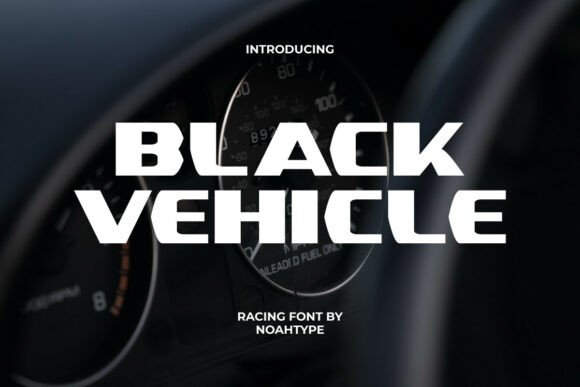
The Ultimate Design Hack: Unleashing the Power of Black Vehicle Font
Ah, the thrill of the design hunt! I still remember the countless hours I spent scrolling through font libraries, searching for the perfect typeface for a client’s sports brand project. The brief was simple: bold, modern, and edgy. I wanted a font that would scream speed and style. And then, I stumbled upon Black Vehicle Font. 🚗💨
This bold and versatile sans-serif display font has been a game-changer for me ever since. With its racing theme and random cuts on the letters, it’s a perfect blend of style and readability. In this article, I’ll share my love for Black Vehicle Font, its features, and how to make the most of it in your designs.
• ✨ Versatility: Black Vehicle Font is perfect for a wide range of designs, from brand image and custom designs to invitations, labels, and marketing materials.
• ✅ Clean and Easy to Read: Despite its bold and edgy look, the font remains clean and easy to read, making it perfect for body text and headings.
• 🔥 Modern Look: The font’s modern design and random cuts on the letters give it a fresh and trendy feel.
• 🤔 Limited Use in Small Sizes: While the font is amazing in larger sizes, it may not be the best choice for very small text or captions.
• ⚠️ Glyph Limitations: Some users have reported limitations in the number of glyphs available, which might restrict its use in multilingual projects.
The Designer Inspiration Behind Black Vehicle Font
Imagine a designer who’s passionate about cars and racing. They wanted to create a font that captures the essence of speed and style. With Black Vehicle Font, they aimed to create a typeface that’s not only bold and edgy but also clean and easy to read. The result is a font that’s perfect for a wide range of designs, from sports branding to fashion and advertising.
Q: What is Black Vehicle Font?
A: Black Vehicle Font is a bold and versatile sans-serif display font with a racing theme and random cuts on the letters.
Q: What industries is Black Vehicle Font suitable for?
A: Black Vehicle Font is perfect for a wide range of industries, including accessories, advertising, event or festival, fashion, game, printing, publishing, sports, travel, and more.
Q: Is Black Vehicle Font available in different weights or styles?
A: Currently, Black Vehicle Font is available in a single weight. However, some font variations or similar fonts might offer additional weights or styles.